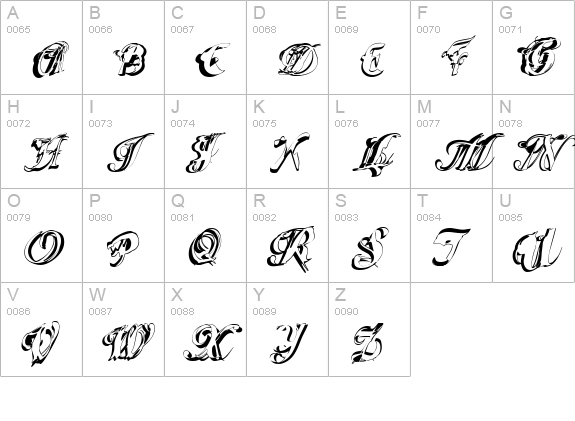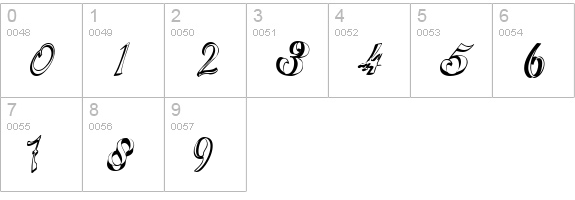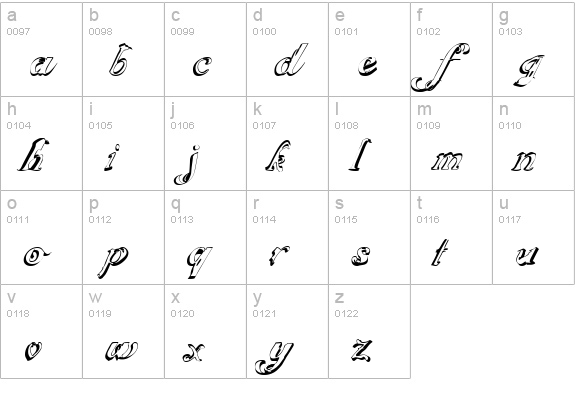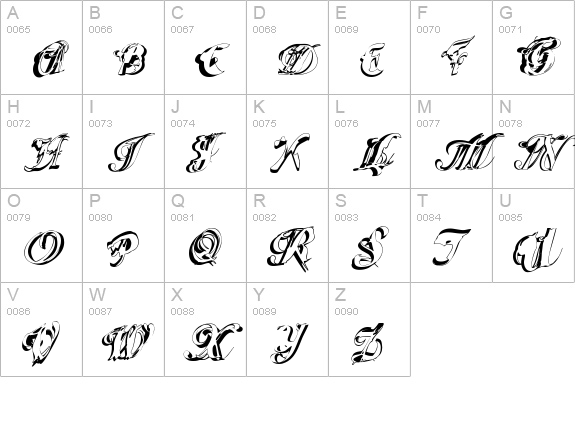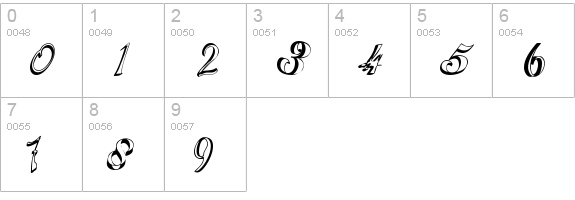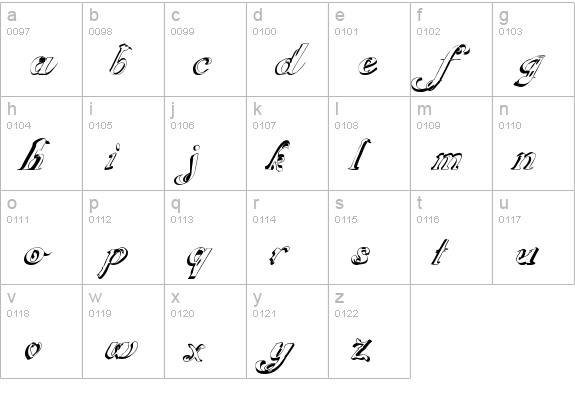
ScripteriaGummy Font Details
Introducing the mesmerizing ScripteriaGummy font, a delightful and whimsical typeface that will bring a burst of sweetness to your designs. This unique and playful font is perfect for adding a touch of joy and creativity to any project. ScripteriaGummy features a charming hand-drawn style with bouncy letterforms and a playful bounce in each character. Its organic and flowing curves give it a friendly and approachable feel, making it a versatile choice for a wide range of design applications. With its wide range of ligatures and alternate characters, ScripteriaGummy offers endless possibilities for customization and creative experimentation. Whether you're designing logos, branding materials, invitations, or social media graphics, this font will add a touch of whimsy and personality to your work. And the best part? ScripteriaGummy is absolutely free! You can download this delightful font at FontsMarket.com, a renowned platform for high-quality and diverse fonts. It's the perfect opportunity to add this versatile and eye-catching font to your collection without spending a dime. So why wait? Get your hands on ScripteriaGummy today and let your imagination run wild. Transform your designs into a visual feast of sweetness and creativity with this delightful font. Download it now, for free, at FontsMarket.com.